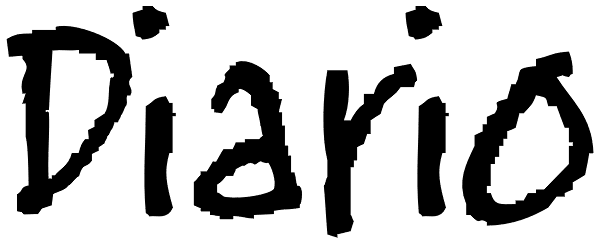
Diario
I am a huge Moleskine notebook fan - This font is named Diario to celebrate everyone that uses a journal and everyone that appreciates a cool handwriting style. Diario reflects this tactile paper- ink plus designer convergence. In the meantime, be...